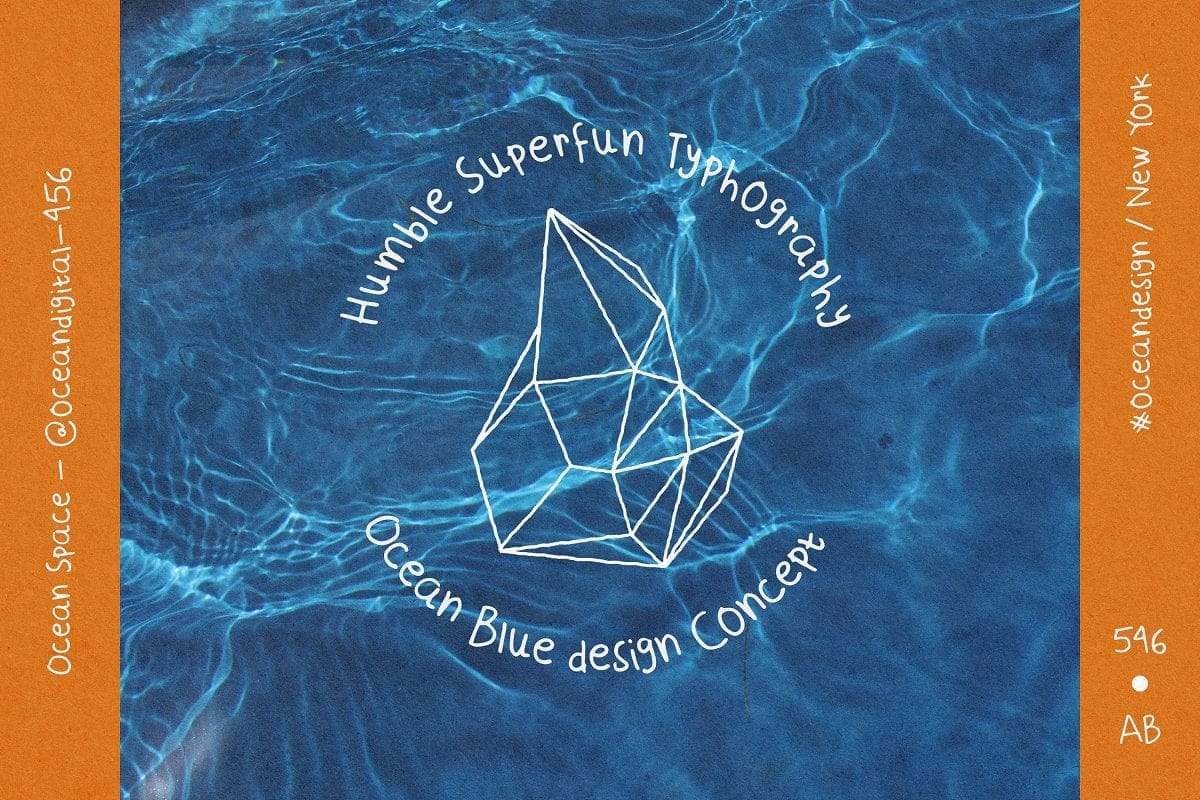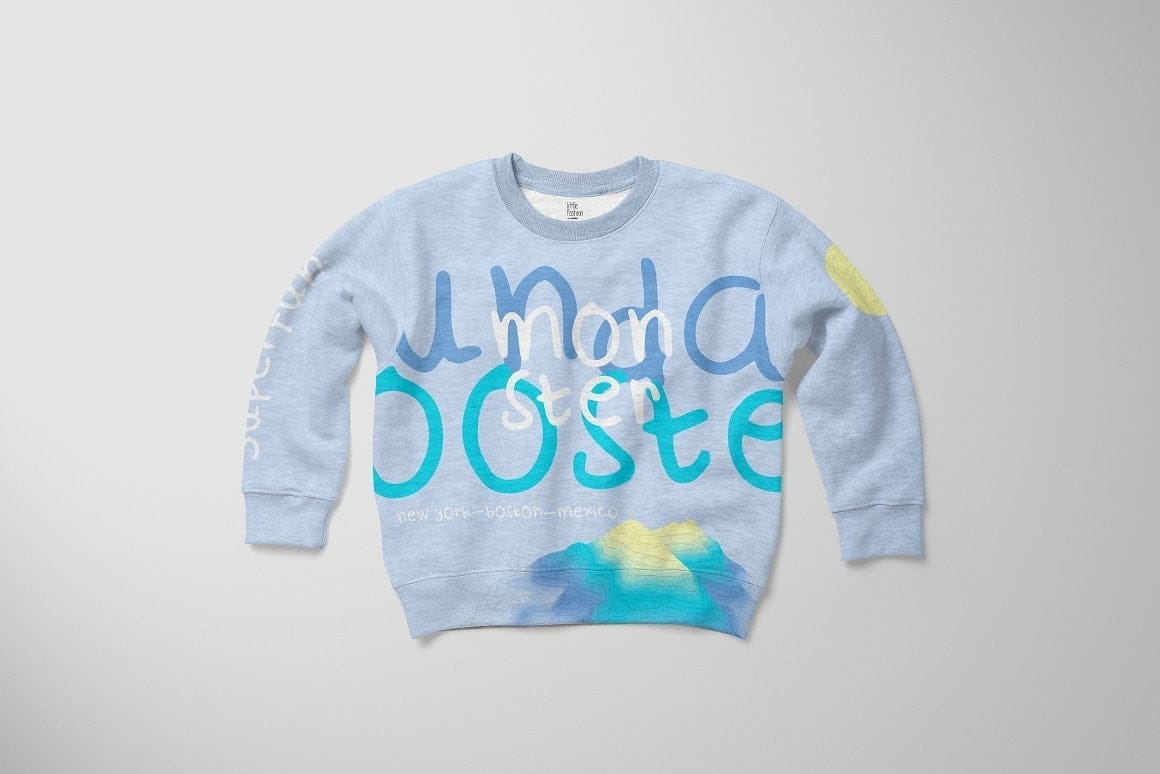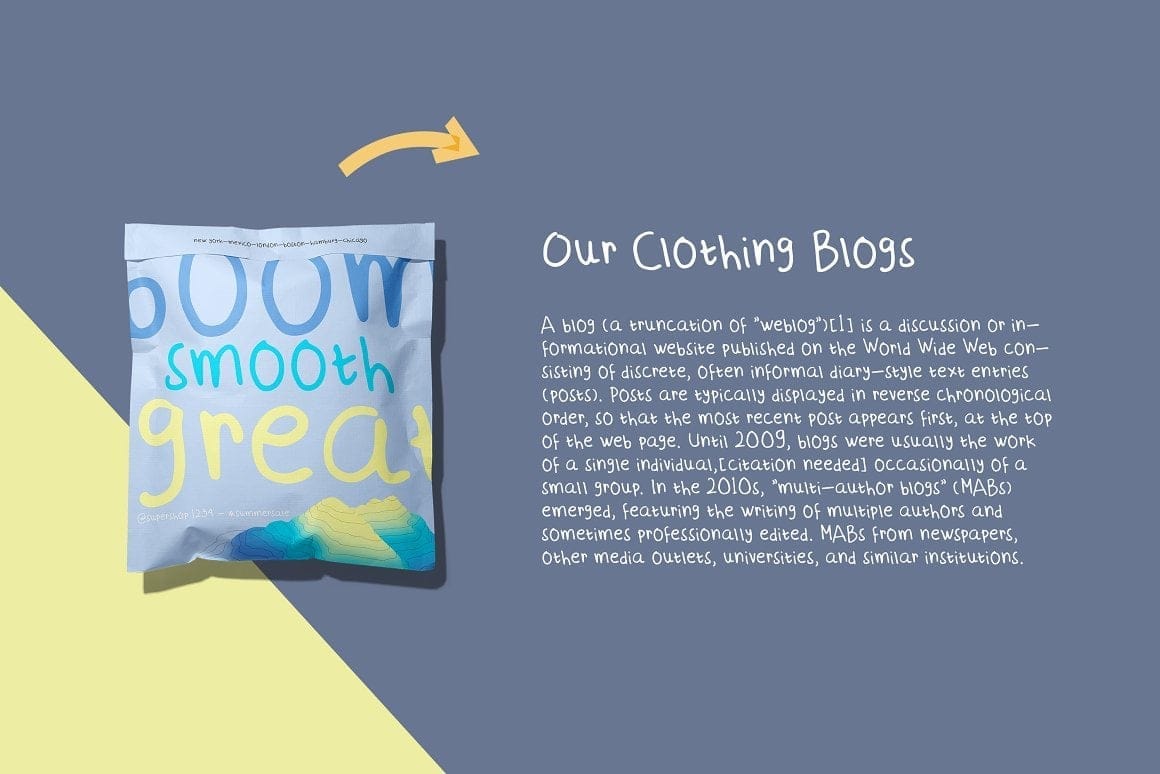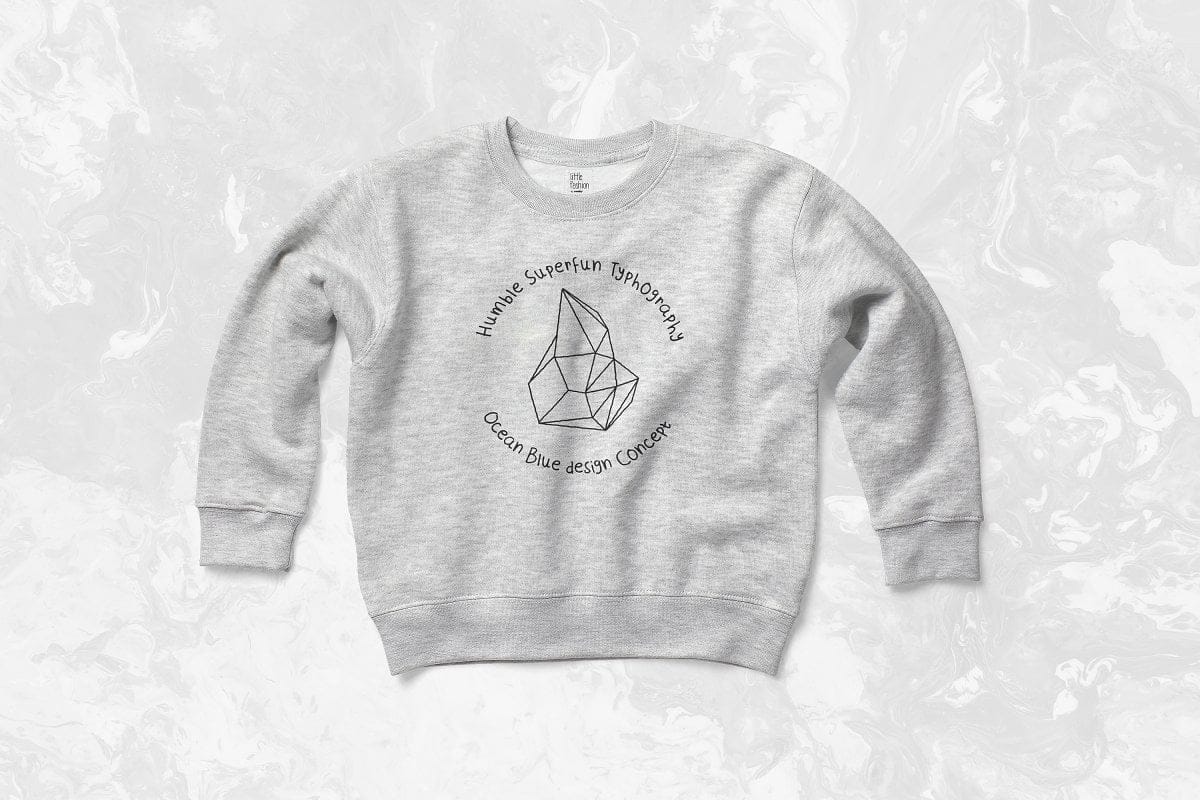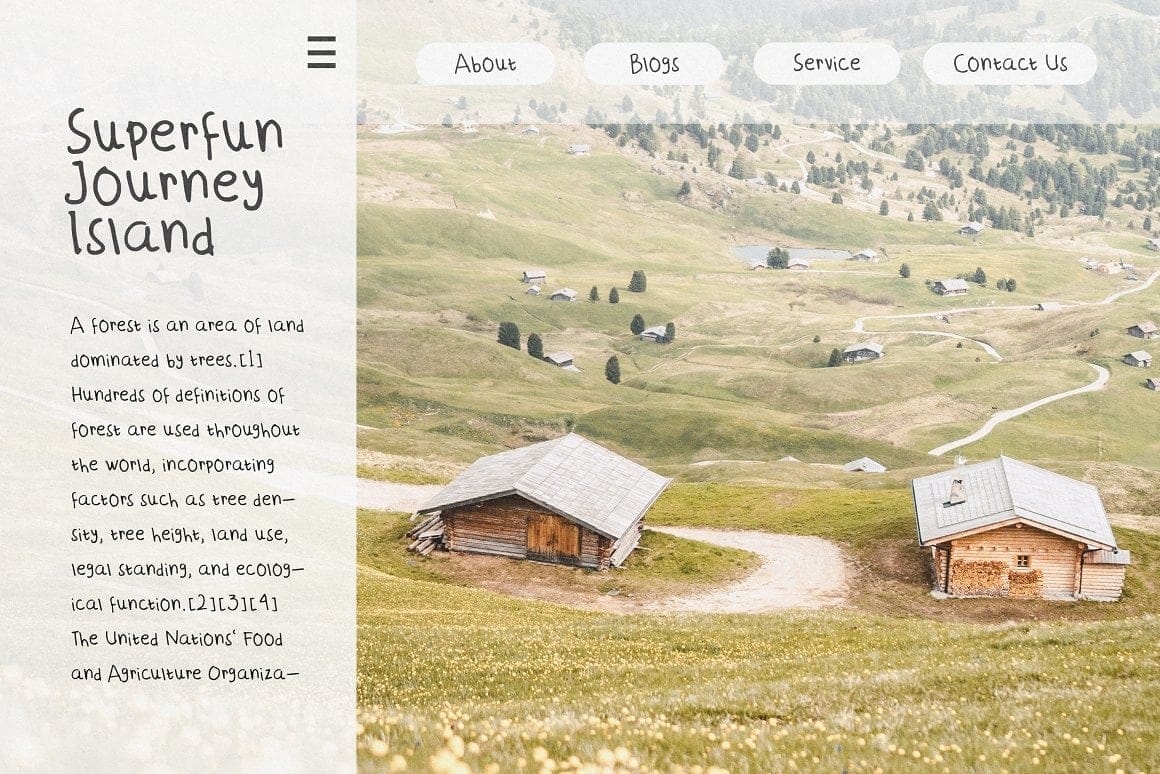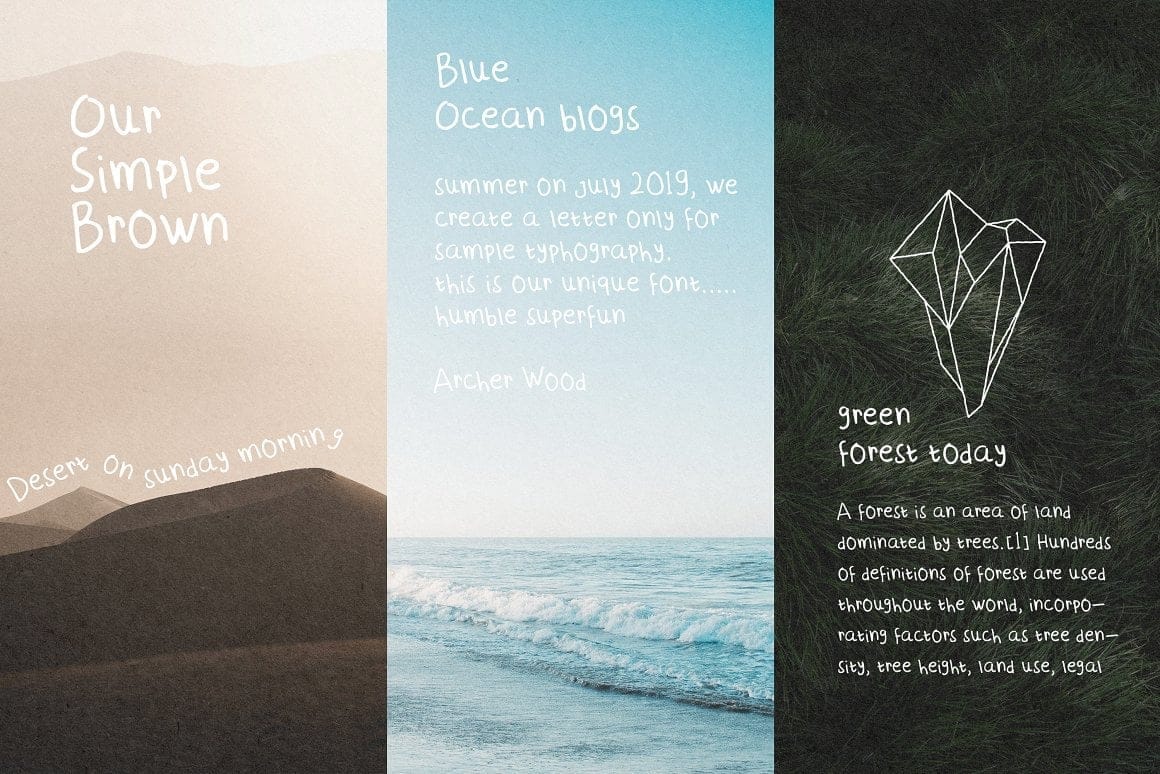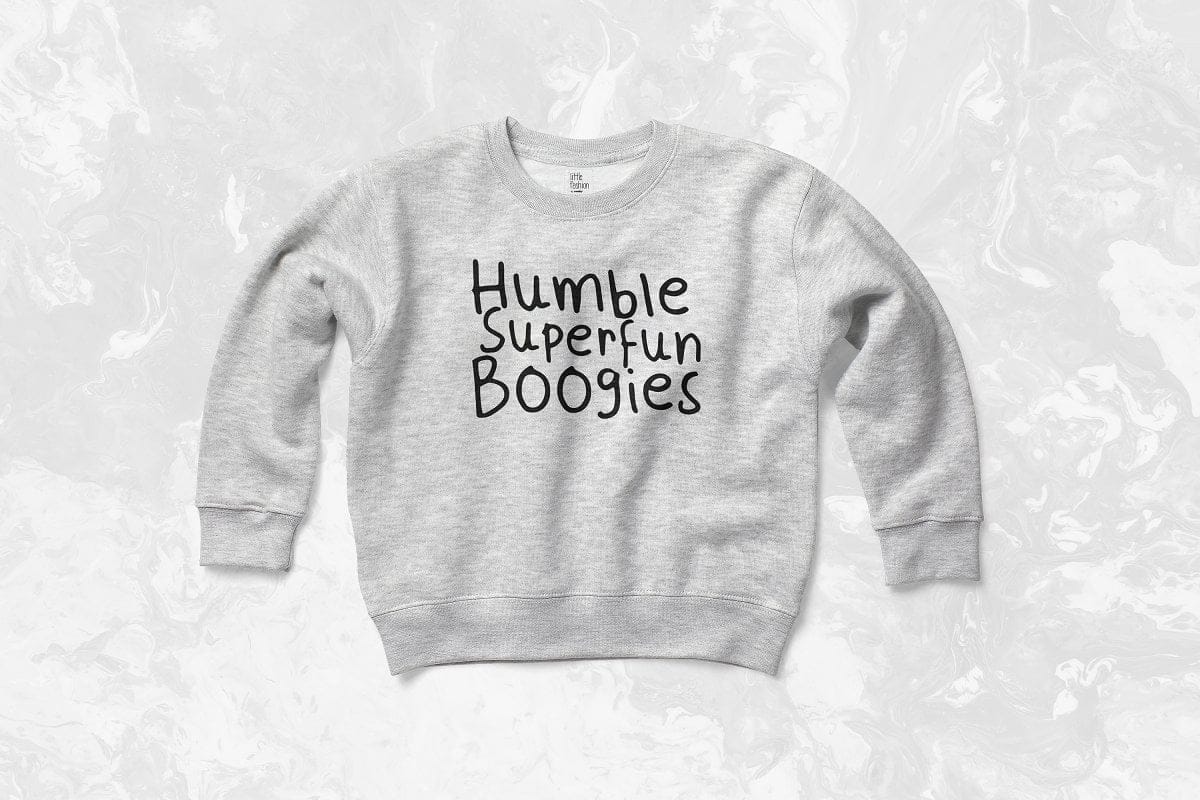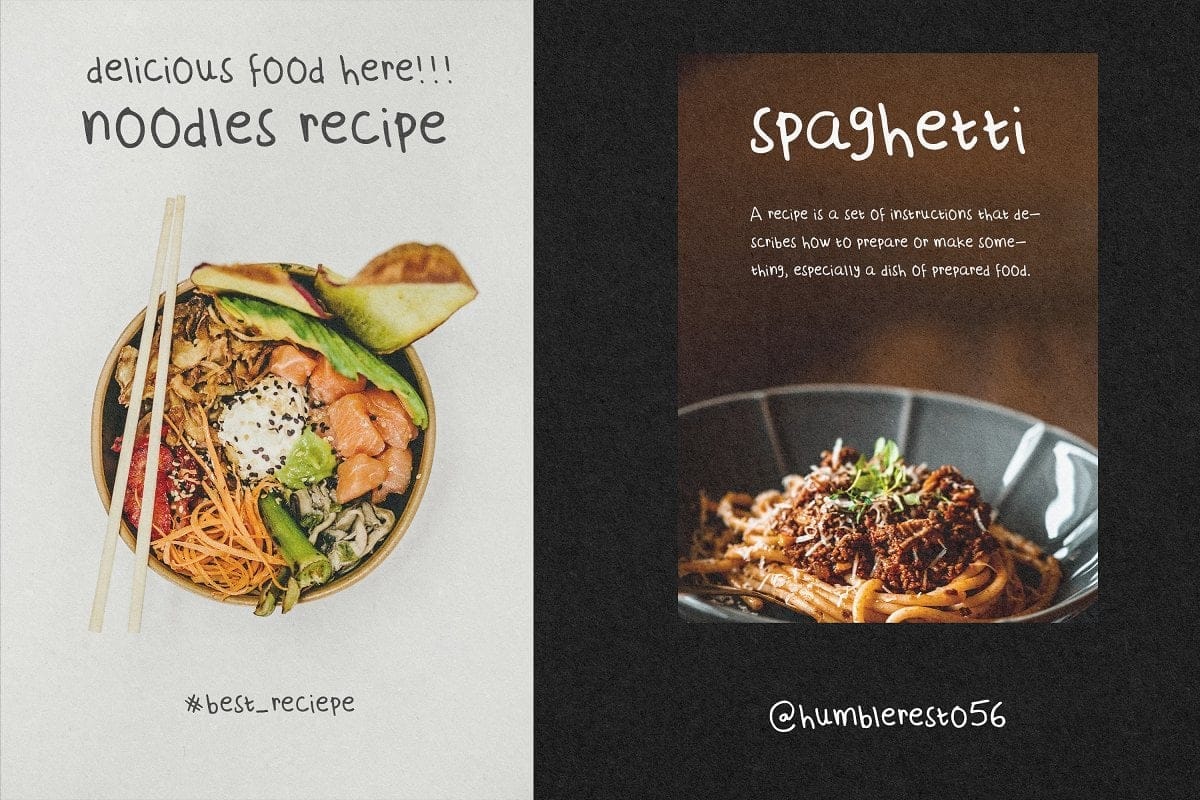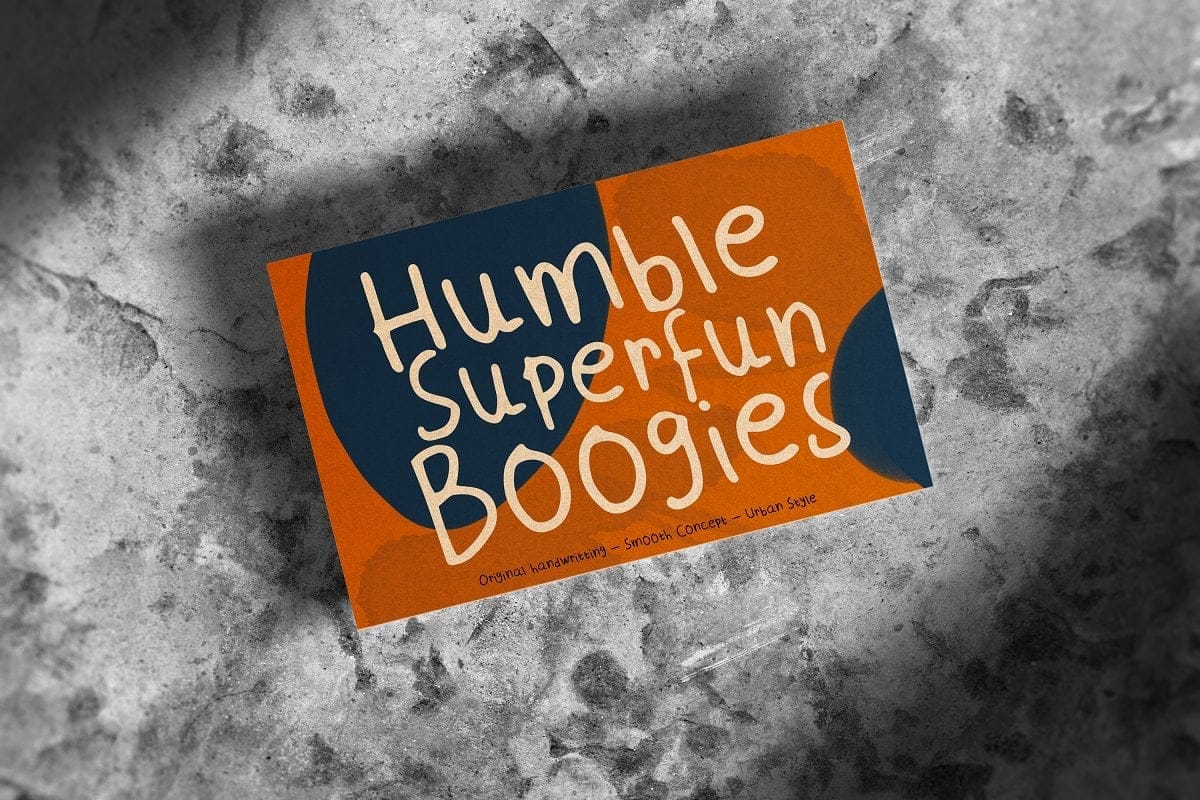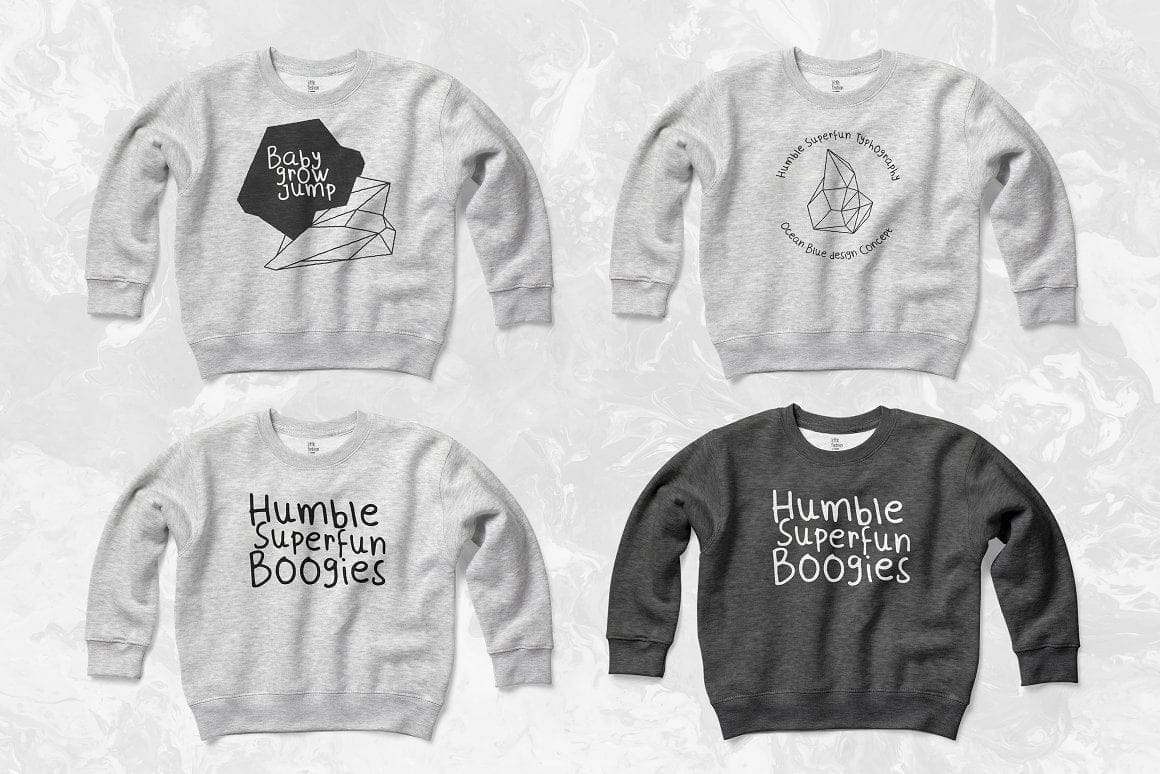
Humble Superfun Boogies Font
Humble Superfun Boogies is unique handwriting font. Created with original handmade sketch. This font suit for personal & commercial project such a poster, letter, headline, web blog, social media post, stories, banner, Packaging, T-shirt design, pillow, wedding invitation, or even for logo design.
Make your business stand out by writing in a way that’s unique to you. Use our handwriting font and give your brand a distinctive look.